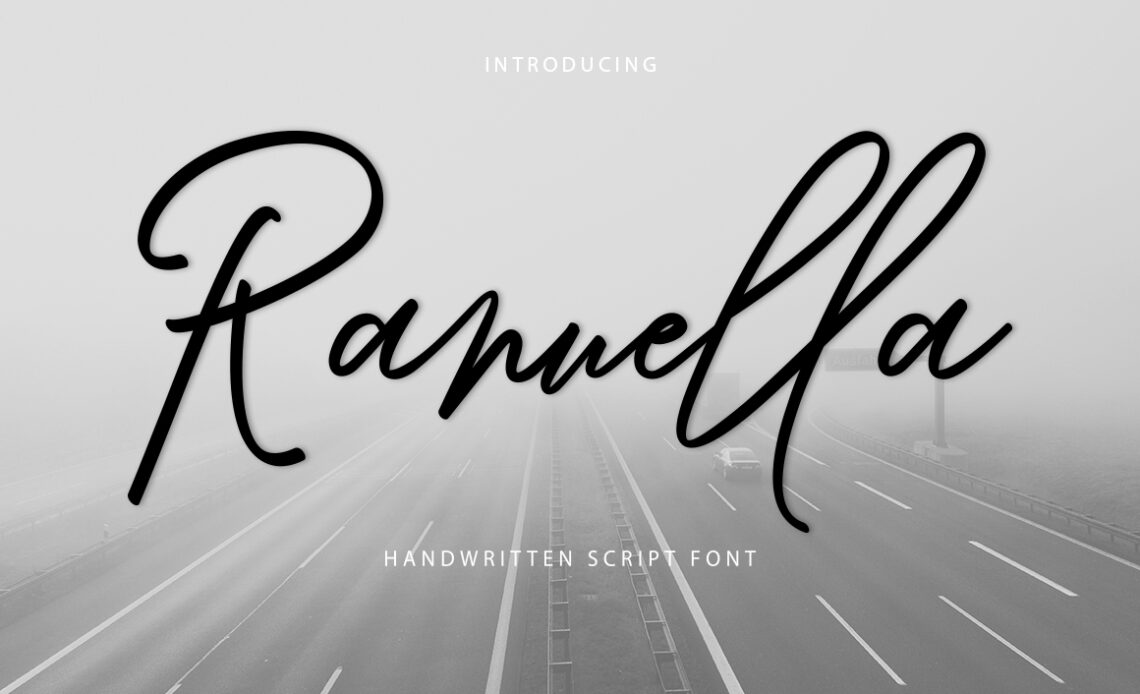
Ranuella Font
Enter the world of Ranuella, a captivating script font that will infuse your creative projects with a touch of elegance and individuality. Experience the allure of a font that seamlessly blends the beauty of calligraphy with the sleekness of modern design.
Crafted with precision by Amarlettering, Ranuella embodies the essence of casual sophistication. Its monoline strokes exude a sense of fluidity and grace, while its clean lines lend a touch of modernity and minimalism. Whether you're designing logos, creating social media graphics, or crafting stunning invitations, Ranuella is your perfect companion.
Step into a realm of endless possibilities with Ranuella. Let your imagination soar as you explore the boundless applications of this remarkable font. From the whimsical world of personal stationery to the dynamic realm of branding and advertising, Ranuella's versatility knows no bounds.
Indulge in the joy of creating captivating logos that exude a timeless charm. Design business cards that leave a lasting impression, and craft social media posts that radiate personality and flair. Allow Ranuella to elevate your wedding invitations and birthday cards, transforming them into cherished keepsakes.
As you embark on your creative journey with Ranuella, discover the joy of effortless expression. Experience the satisfaction of crafting designs that resonate with your audience, capturing their attention and leaving an imprint on their hearts.
Unleash the allure of Ranuella today and embark on a creative adventure that will redefine your design horizons. Let this remarkable font ignite your imagination and empower you to create masterpieces that leave a lasting legacy.